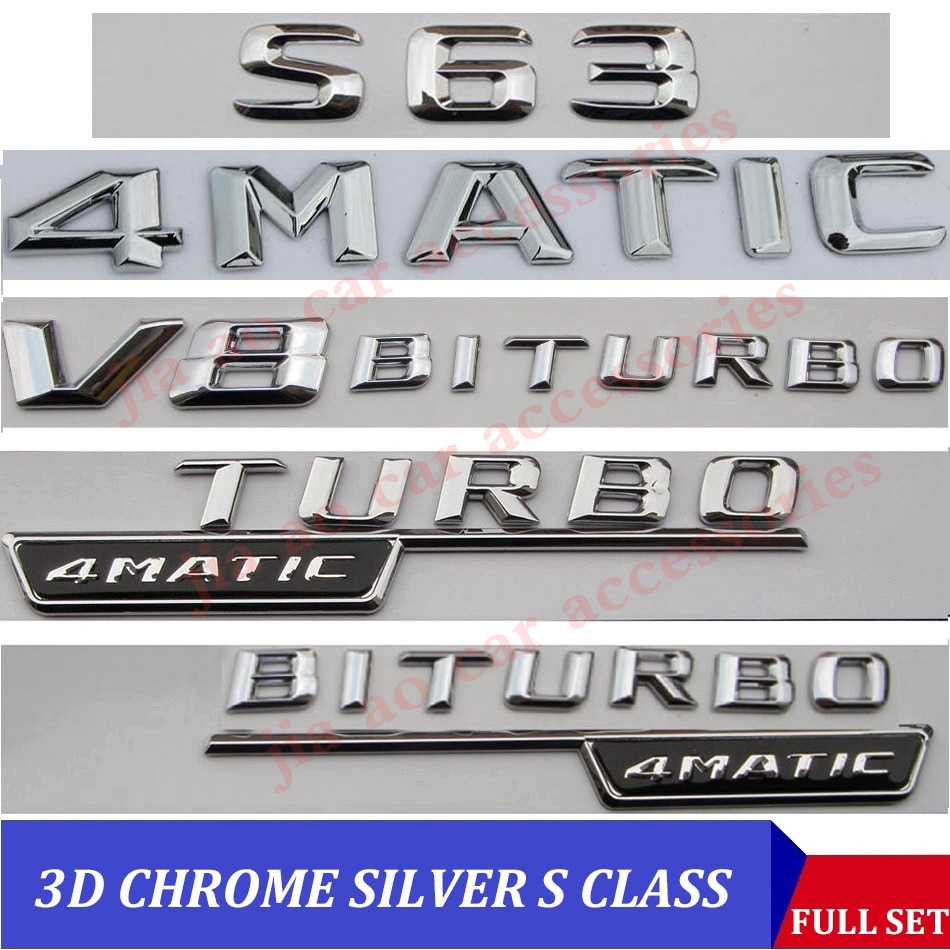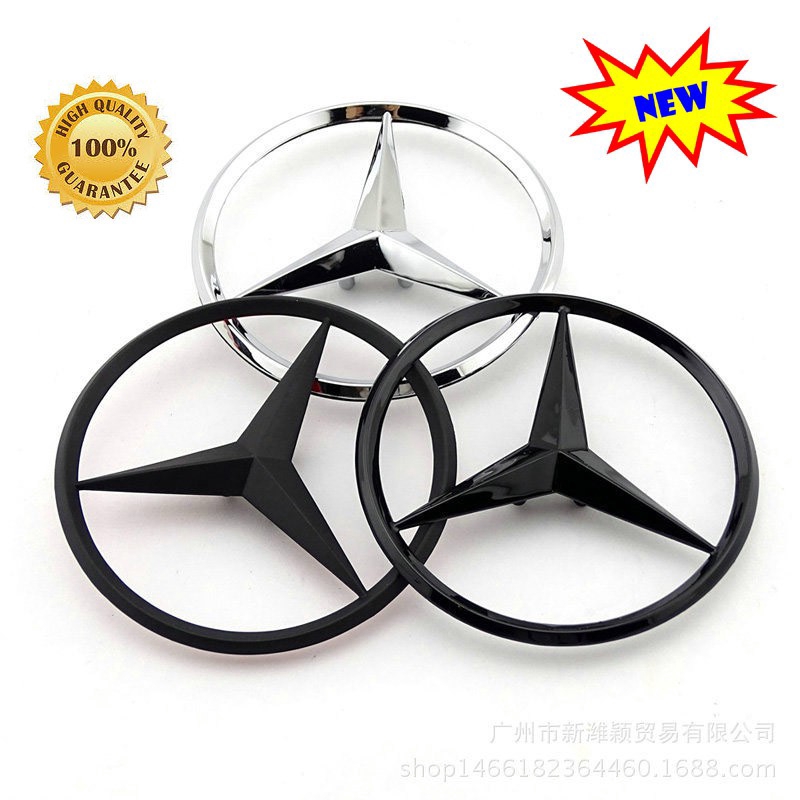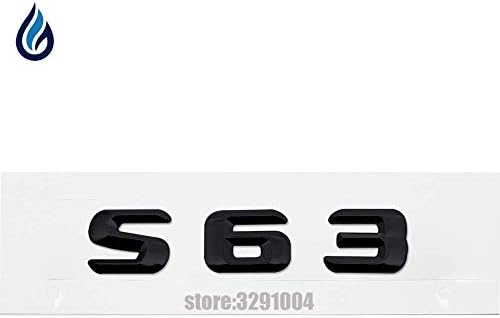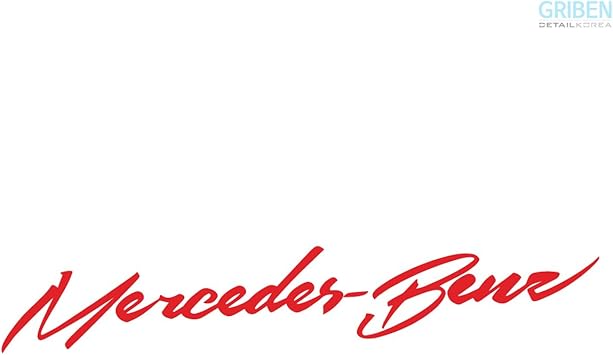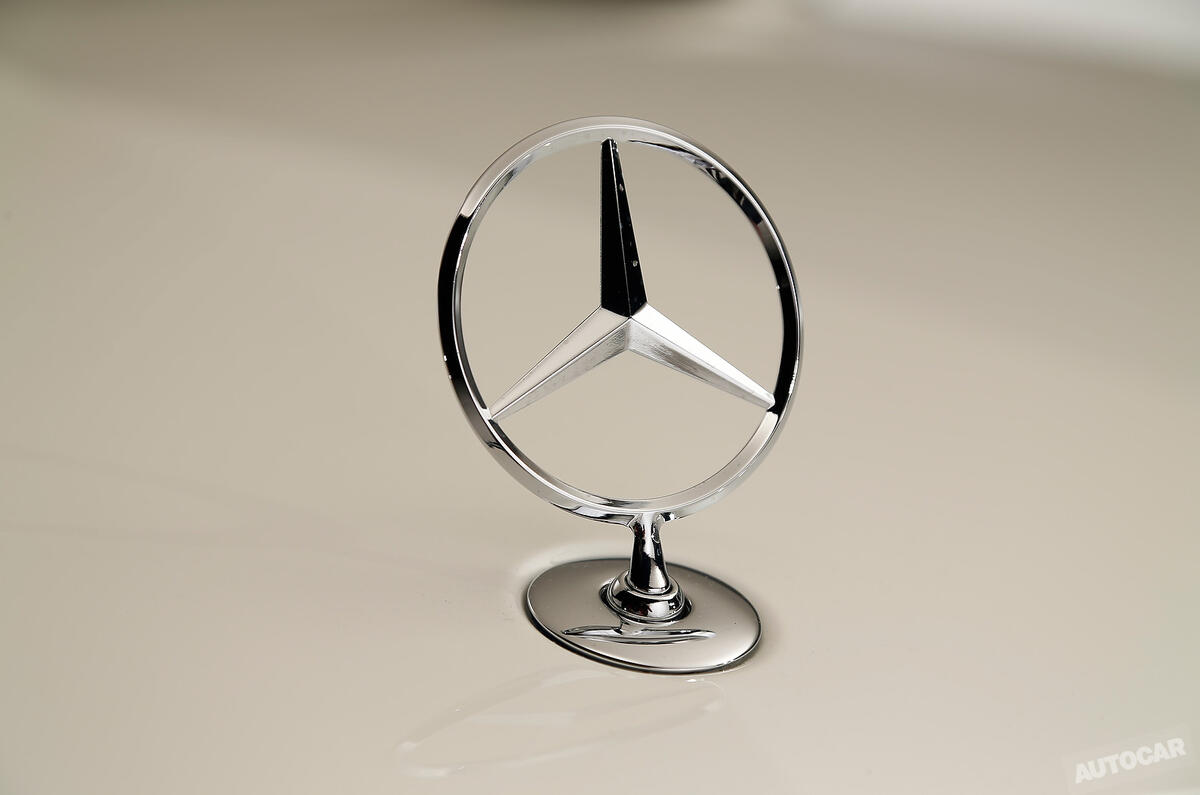
Mercedes Font Name
Mercedes font name. 1965 Guizhi wound red and white circular logo as the official emblem;. Download and install the Mercedes Regular font for free from FFontsnet ️ This font has been downloaded 6,000 times. Can some kind redditor send me a link to download the F1 18 font?.
People Mercedes (name), a Spanish feminine name, including a list of people and fictional characters with the given name or surname Automobilerelated Mercedes (marque), the pre1926 brand name of German automobile models and engines built by Daimler Motors company MercedesBenz, the post1926 German brand of automobiles, engines, and trucks now owned by Daimler AG. Although the smart name seems selfexplanatory (as everything these days is “smart”), it’s actually a clever acronym S Swatch M Mercedes ART Acknowledging the unique design associated. Thanks 7 comments share save hide report 71% Upvoted This thread is archived New comments cannot be posted and votes cannot be cast Sort by Mercedes' deleted tweet "We could not do this" 125k 330 comments share save hide report.
A factory in 1991, Fiat 600 switch on the front face of the five cablestayed straight bars, the rear is still the identity of the four boxes. Mercedes Logo PNG Mercedes is the name of the most famous German car brand, which was established by Karl Benz and Gottlieb Daimler in 1926 Today the label is owned by Daimler AG and has its presence on all continents with manufacturing facilities in different countries across the globe Meaning and history There is barely any car badge, which is more recognizable than the MercedesBenz emblem. Insert your name here Font dafontcom English Français Español Deutsch Italiano Português Login Register Themes New fonts Authors Top Forum FAQ Submit a font Tools Insert your name here Custom preview Size Insert your name here by Christopher Hansen in Script >.
Font Cyrivendell by Ivan Apostolski Category Regular Download Font Rondelle Category Regular Download Font Fidelle Category Kids Download Font SpiralOdellic Category Fancy. The history of today’s MercedesBenz trademark began in the summer of 1909 in Untertürkheim and Mannheim, Germany This is because, independently of one another, the predecessor companies of Daimler AG registered their trademarks at the German Imperial Patent Office 110 years ago on 24 June 1909, DaimlerMotorenGesellschaft (the valuable name of the company founder had already been. The Mercedes Regular font contains 5 beautifully designed characters ️ Customize your own preview on FFontsnet to make sure it`s the right one for your designs.
Font "Mercedes" can be described in the following words Antique, Font, Roman, Serif If you want to add to your 💛favorites Click Ctrl D. The best colors for car logos are red for excitement, blue for loyalty, silver for sleekness, and yellow for energy Some of the fonts preferred for car logos, including text, are Burlingame, Arial, Mayberry, and Slate The whole logo should work harmoniously to invoke the freedom you feel on four wheels. Free Fonts for Commercial Use · New & Fresh Fonts · Most Popular Fonts · Alphabetic Fonts · Largest Font Families · Trending Fonts Home > s > Brandname Hello, you seem to have JavaScript turned off.
SLK (Sportlich, Leicht und Kurz) (sport, light, short) Compact Luxury Roadster MercedesBenz nomenclature MercedesBenz SLK SLCClass A sports roadster equivalent to the C Class SLSclass (Sport Leicht Super) (Sport Light Super) A 2seater Luxury Grand Tourer. Text Font Generator This text font generator allows you to convert normal text into different text fonts that you can copy and paste into Instagram, Facebook, Twitter, Twitch, YouTube, Tumblr, Reddit and most other places on the internet The different text fonts are all a part of the Unicode standard which means that they're not like normal. The fonts in the Cursive family imitate human handwriting and the letters are usually joined together in a flowing manner Many people associate Cursive fonts with faster writing and calligraphy Fantasy (eg, Star Wars) The Fantasy font family generally has decorative elements in each letter but still represents the characters Many fictional.
Mercedesa, the daughter of Jelinek, a Spanish word that means grace was the inspiration for their business name later on The Mercedes logo One of the most known brand identities in the world, the Mercedes logo shows integrity and a rich legacy that belongs to the automotive company. Download the free font replicating the Hot Wheels logo and many more at the ORIGINAL Famous Fonts!. In 4 weights (and italics), the 8 font Klinic Slab family is one of our most comprehensive releases to date A contemporary, versatile Slab Serif, Klinic is a workhorse that marries personality and functionality 16 BONVENO CF Thin, Light flat font 17 CAVIAR DREAMS Great flat font with 4 styles Italic, Bold Italic, Regular and Bold 18 MULI.
SLK (Sportlich, Leicht und Kurz) (sport, light, short) Compact Luxury Roadster MercedesBenz nomenclature MercedesBenz SLK SLCClass A sports roadster equivalent to the C Class SLSclass (Sport Leicht Super) (Sport Light Super) A 2seater Luxury Grand Tourer. Audi Type Extended, the font style for headlines, is defined by its font width of 130 If necessary, this width can be reduced to a minimum of 1 The type weight (Normal to Bold) can be freely selected to match the statement. 1001 Fonts has a mix of deadringer knockoff badge fonts and others that just feel vaguely carrelevant But, again, there appear to be a lot of free options And of course if you’re looking for.
Free Fonts for Commercial Use · New & Fresh Fonts · Most Popular Fonts · Alphabetic Fonts · Largest Font Families · Trending Fonts Home > s > Brandname Hello, you seem to have JavaScript turned off. In 18, Mercedes become the biggest selling vehicle brand in the world And it sold over 231 million cars Due to its popularity, many designers look forward to the font used in the Mercedes title The font used for the lettering in the logo is very similar to Corporate A Font Family URW (Unternehmensberatung Rubow Weber) is a digital typeface foundry took the charge for designing it. The designers at MercedesBenz are reconciling tradition and modernity in designing the cars for the future Their work centres on “Sensual Purity” as an expression of modern luxury The new design idiom featuring reduced edges and creases – indentations and recesses in the sheet metal – aims to create clear forms and sensual surfaces.